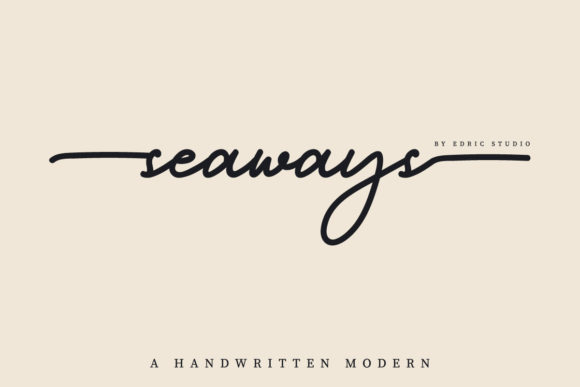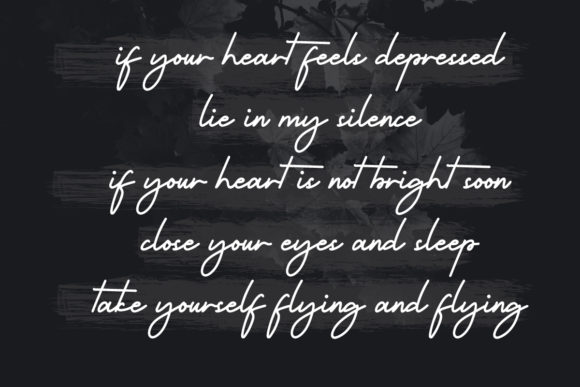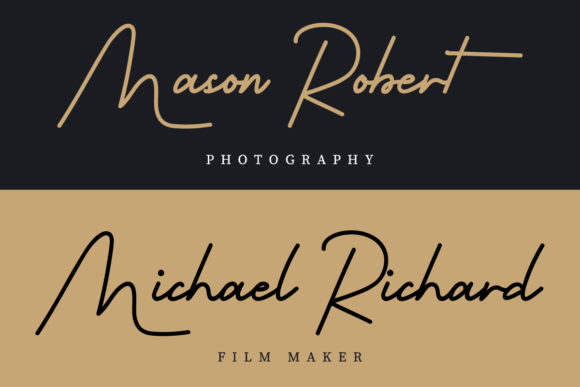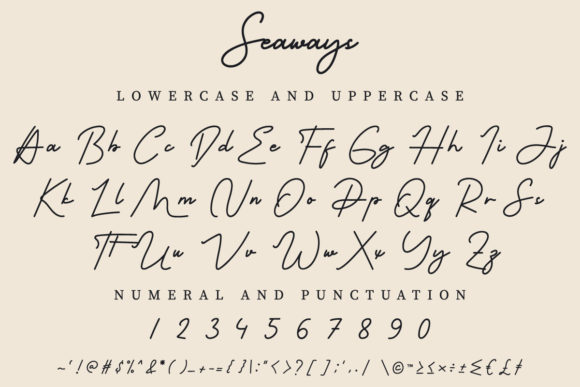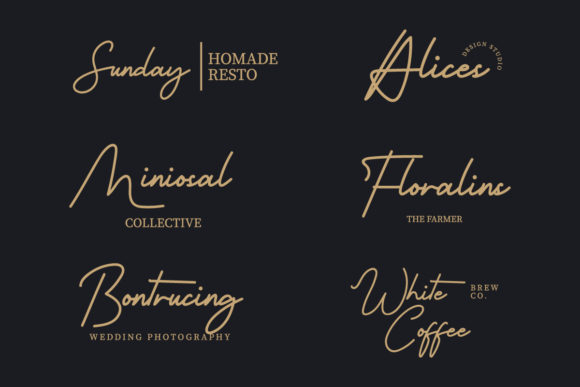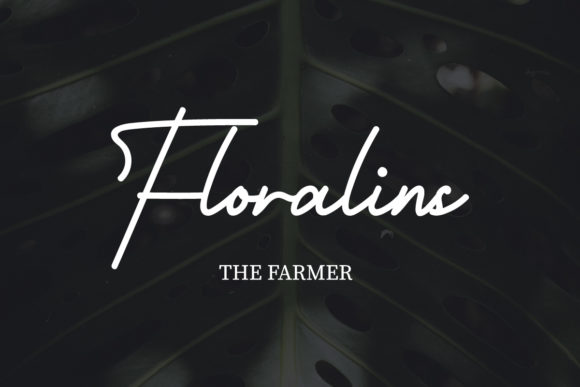
Introduction to Seaways Font
Seaways is a sweet and flowing handwritten font.
Not too thin and not too thick, balanced and smooth, this font was designed to enhance the beauty of your projects .